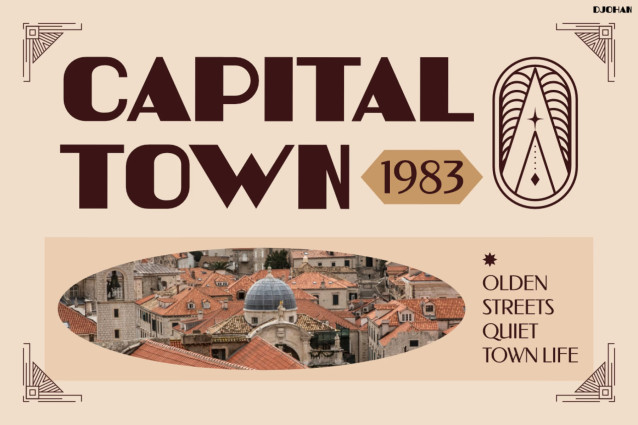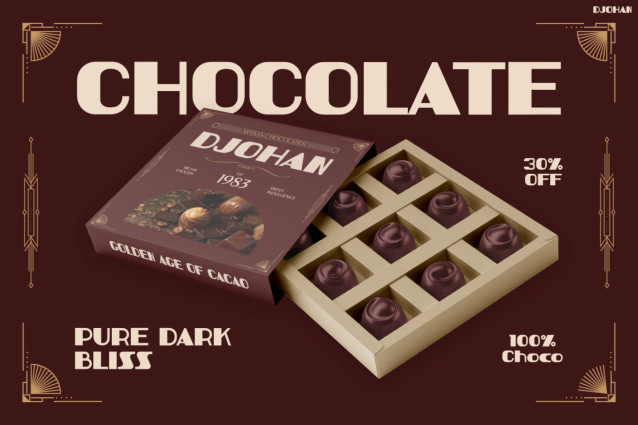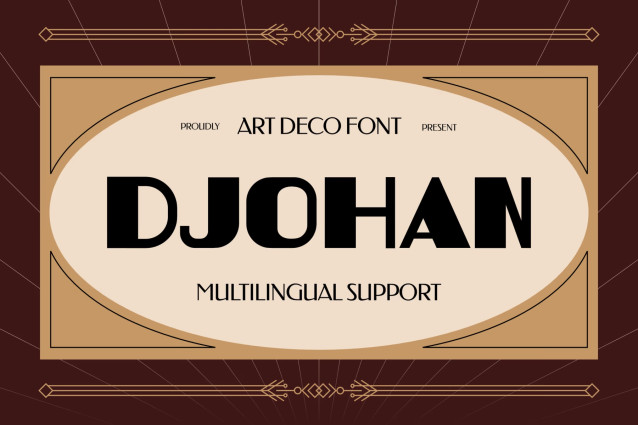
Retro Font DJOHAN brings a classic vintage mood with bold and decorative letterforms. From the start, its strong shapes create an instant old-school feel. Moreover, the elegant details add extra personality to every word. At the same time, its balanced structure keeps the text clean and readable. In addition, DJOHAN blends classic charm with a fresh modern touch.
Because of this, it works beautifully for bold headlines and memorable branding. Furthermore, its timeless style makes creative projects feel warm and distinctive. Plus, DJOHAN includes Multilingual Support for 67 Languages. Therefore, you can use it for projects aimed at audiences worldwide.